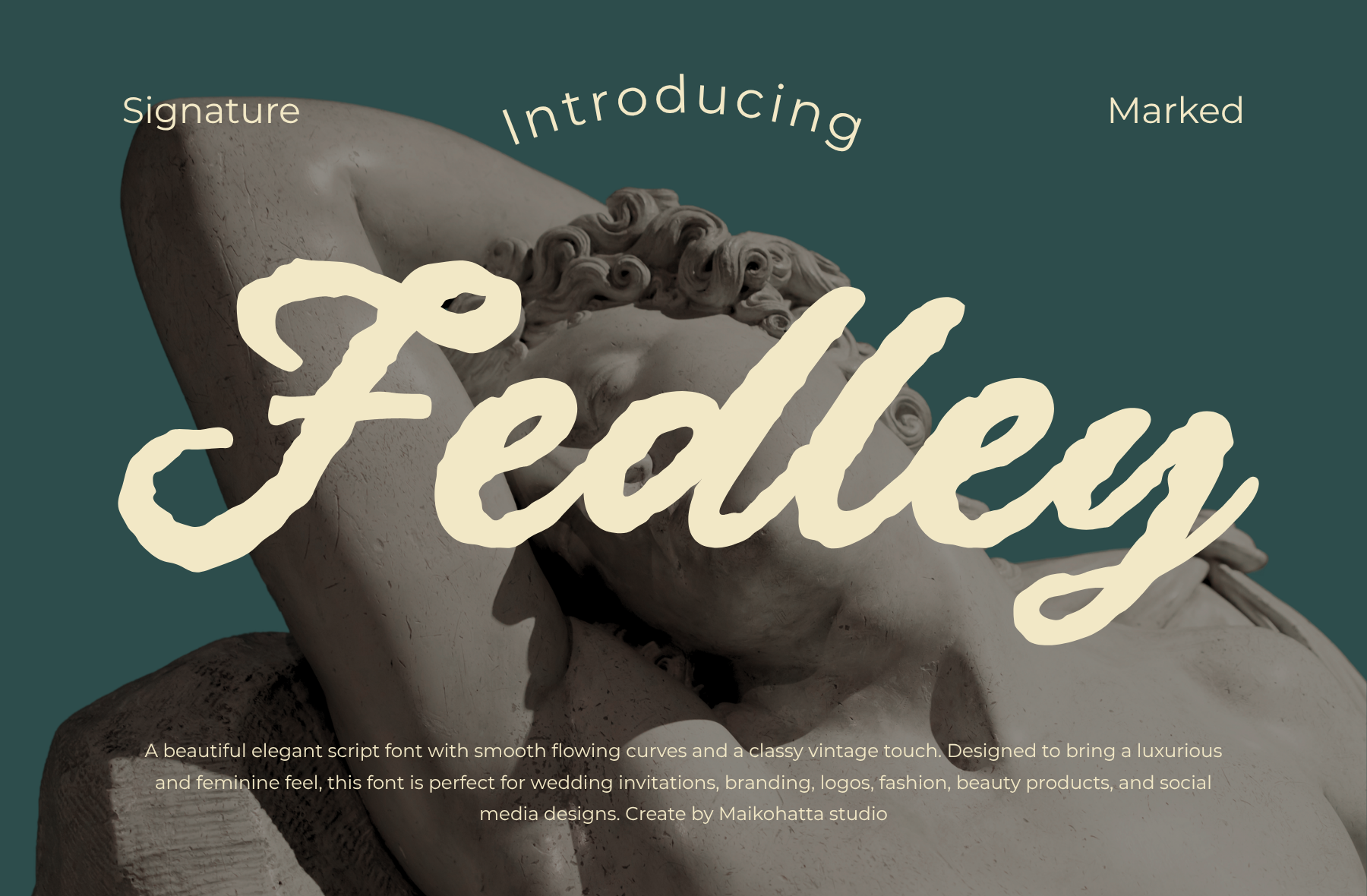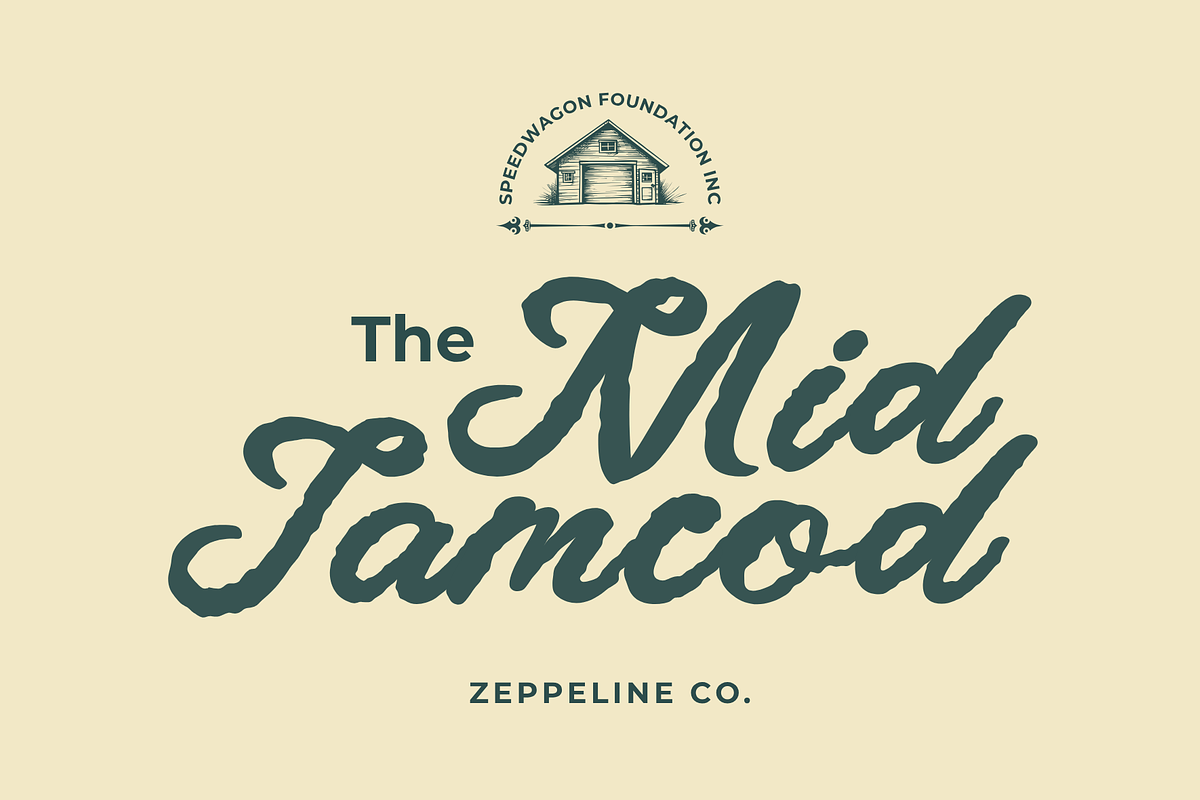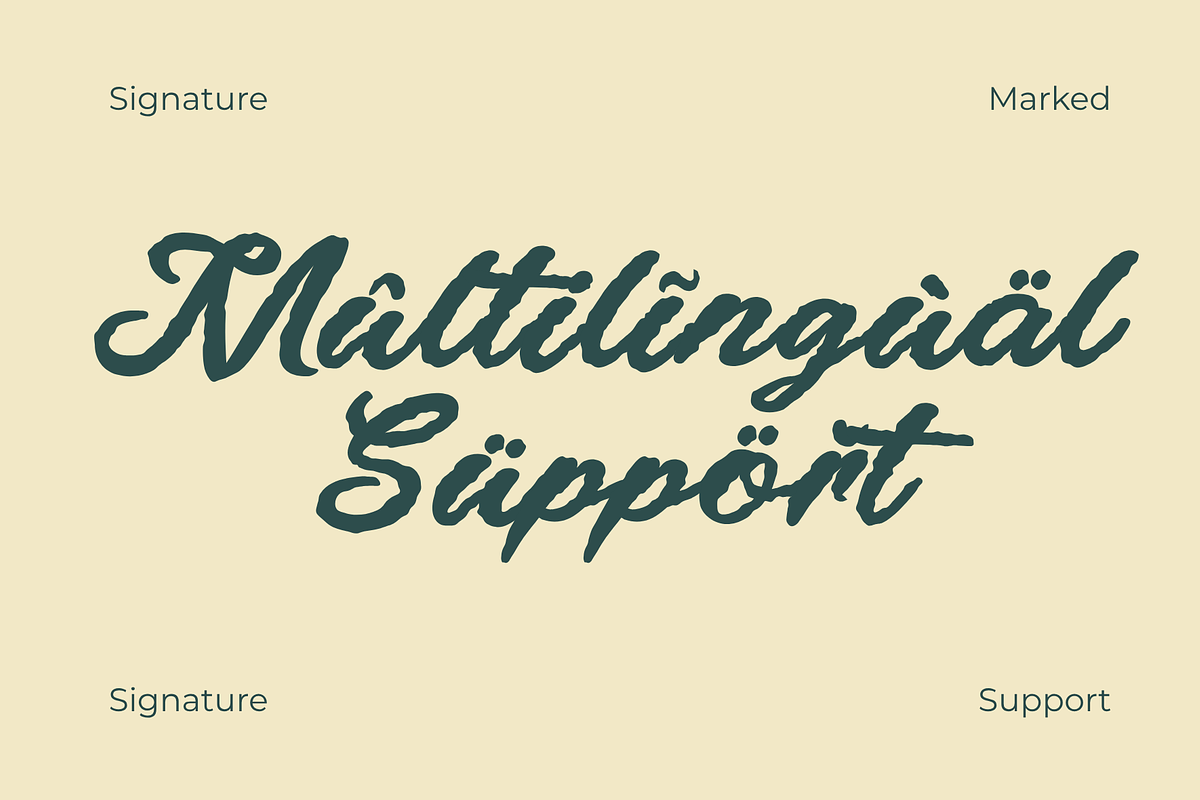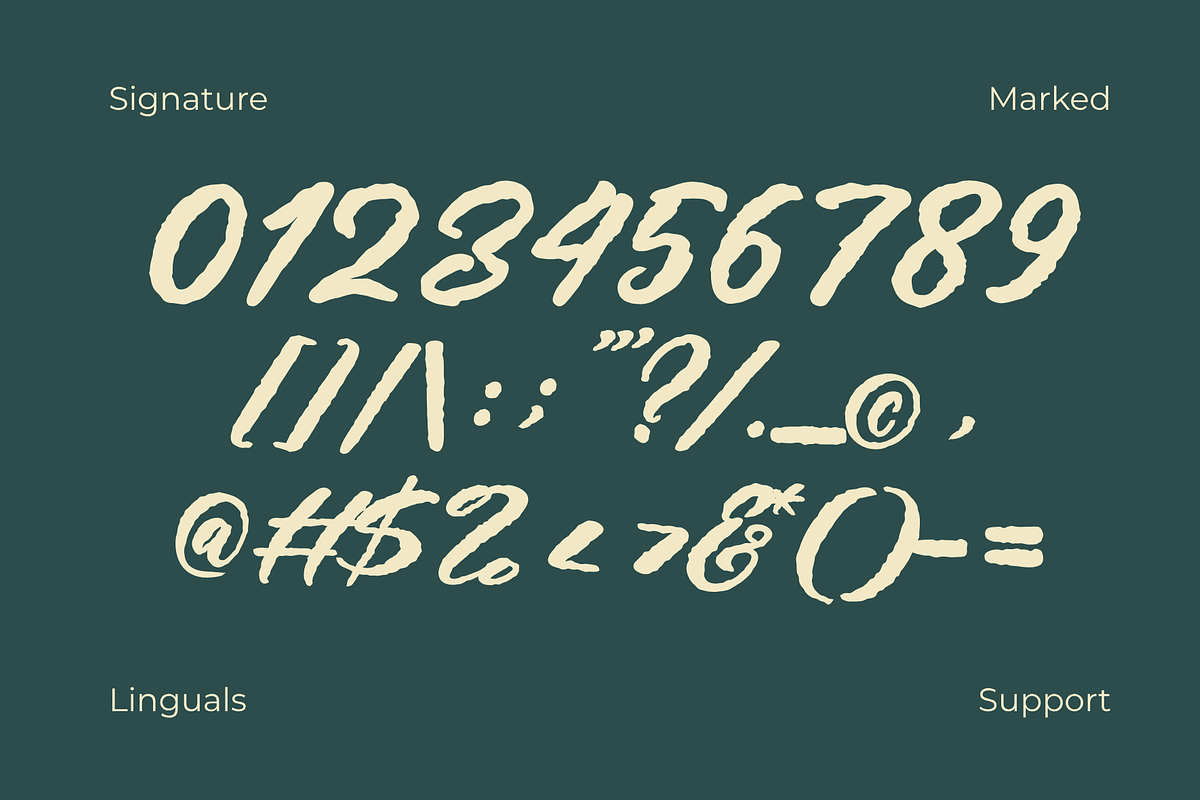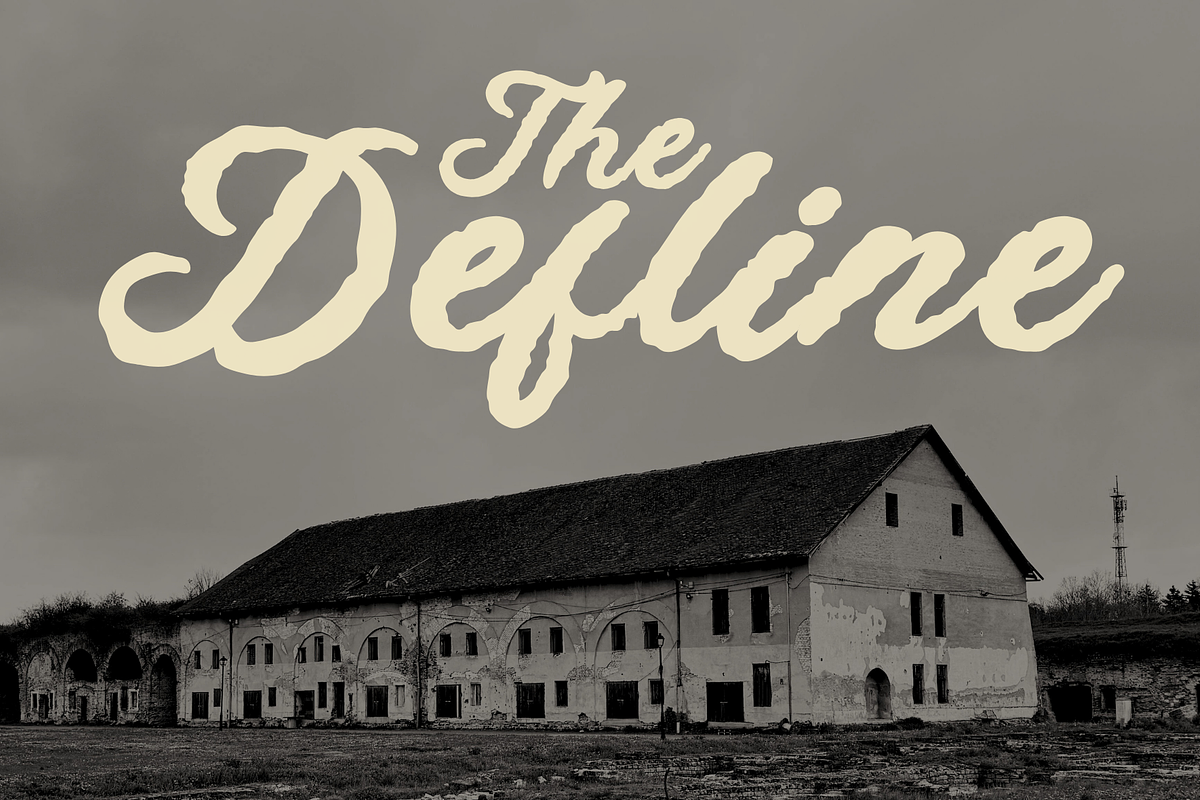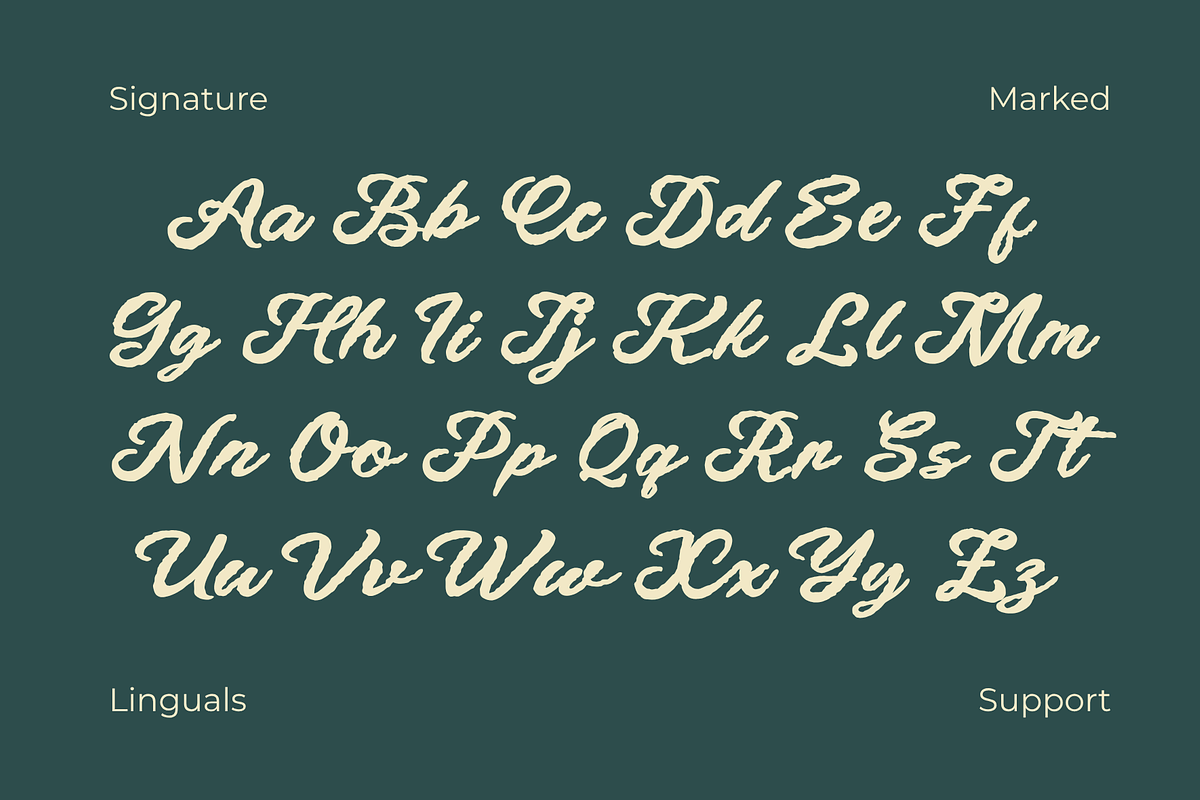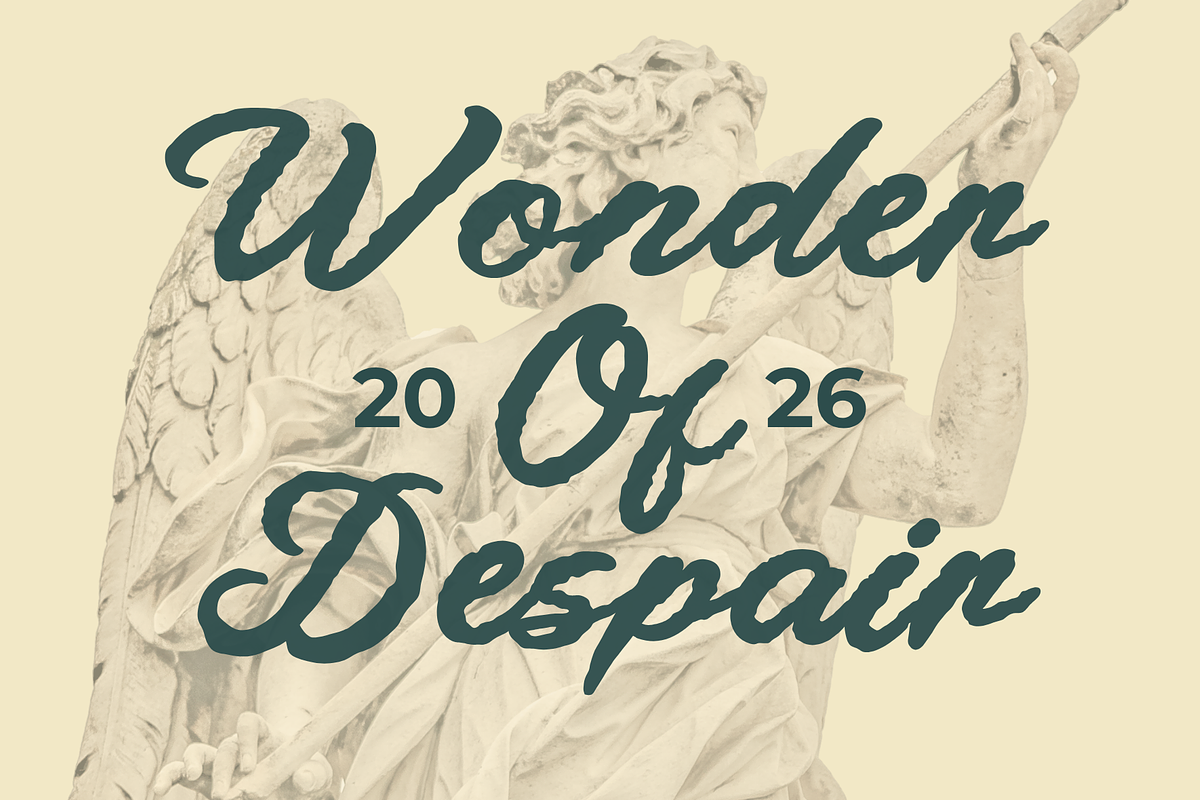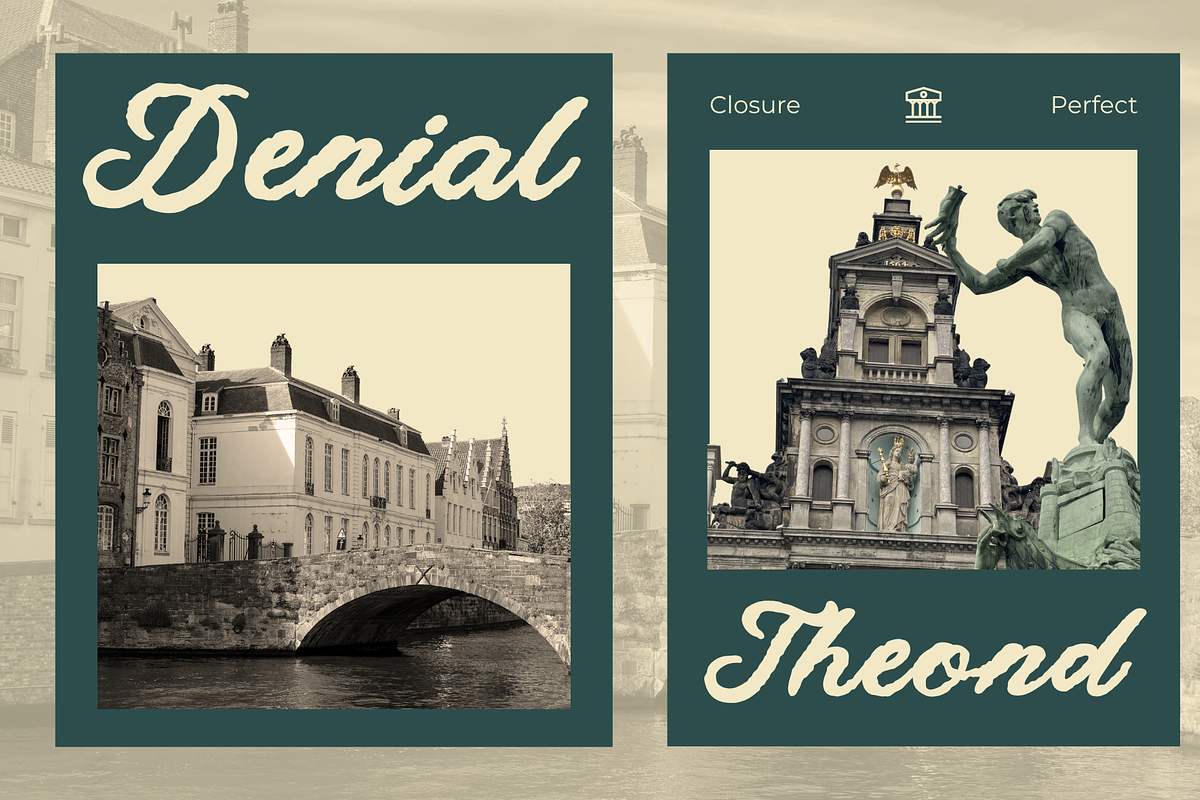
Fedley - Modern Calligraphy Font
Introducing our new product Fedley – Modern Calligraphy Font
Fedley is a modern calligraphy font that combines elegance, fluidity, and a natural handwritten feel. Designed with smooth flowing curves and stylish strokes, this font brings a sophisticated and luxurious touch to any design project.
With its graceful letterforms and contemporary style, Fedley is perfect for creating stunning wedding invitations, branding, logos, fashion designs, beauty products, social media content, and more. Each character is carefully crafted to deliver a refined and feminine aesthetic while maintaining excellent readability.
Fedley Modern Calligraphy Font is ideal for designers who want to add a classy, personal, and high-end look to their work.